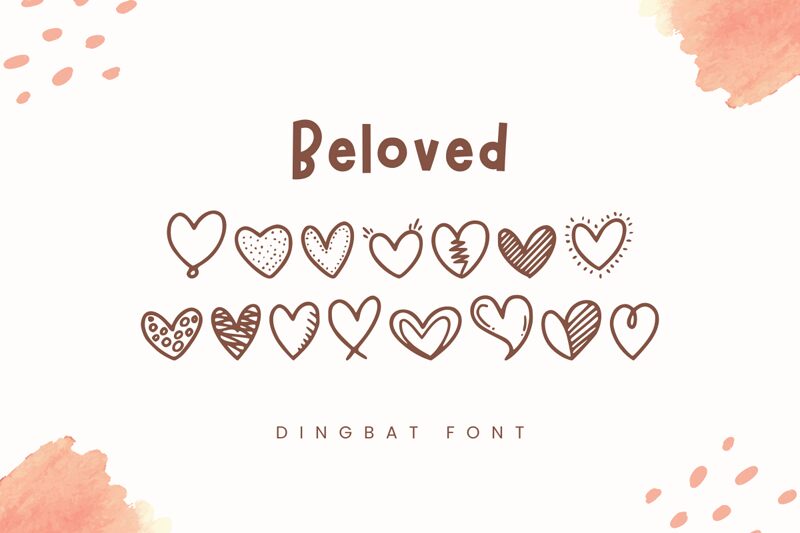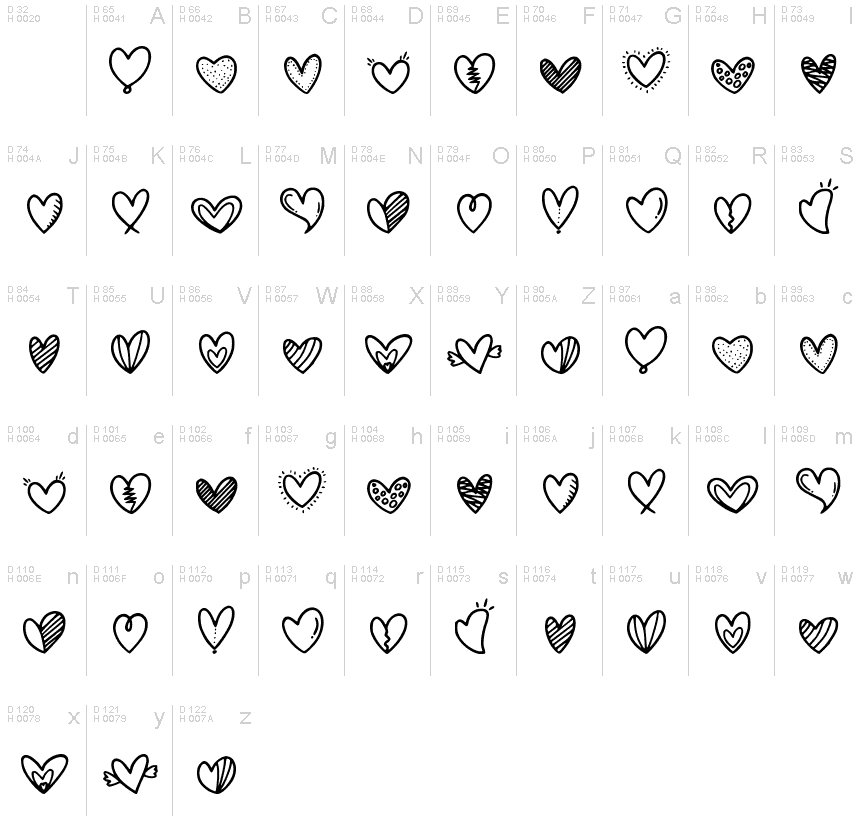
Beloved
Beloved is a heart-filled dingbats font created by Letterge Studio. It is perfect for adding a touch of romance to any project, such as wedding invitations, Valentine's cards, or love-themed decorations.